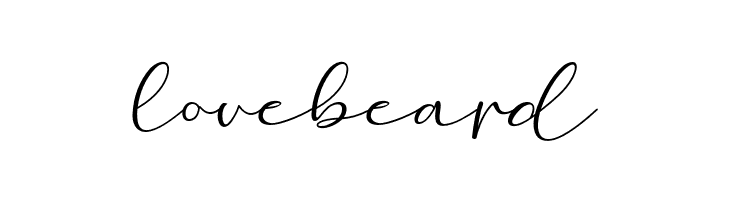
A playful, heart-themed decorative font with bold outlines.
A playful dingbat font with diverse heart and love-themed icons.
A cursive, handwritten font with smooth, connected strokes and elegant style.
A playful heart and arrow design, ideal for romantic themes.
A bold, playful font with a 3D shadow effect and blocky, enclosed letters.
A bold, playful font with characters on tilted blocks, creating a dynamic 3D effect.
An ornate and decorative script font with intricate swirls and flourishes.
An elegant script font with flowing, interconnected letters and calligraphic style.
An elegant script font with flowing, cursive style and high contrast strokes.